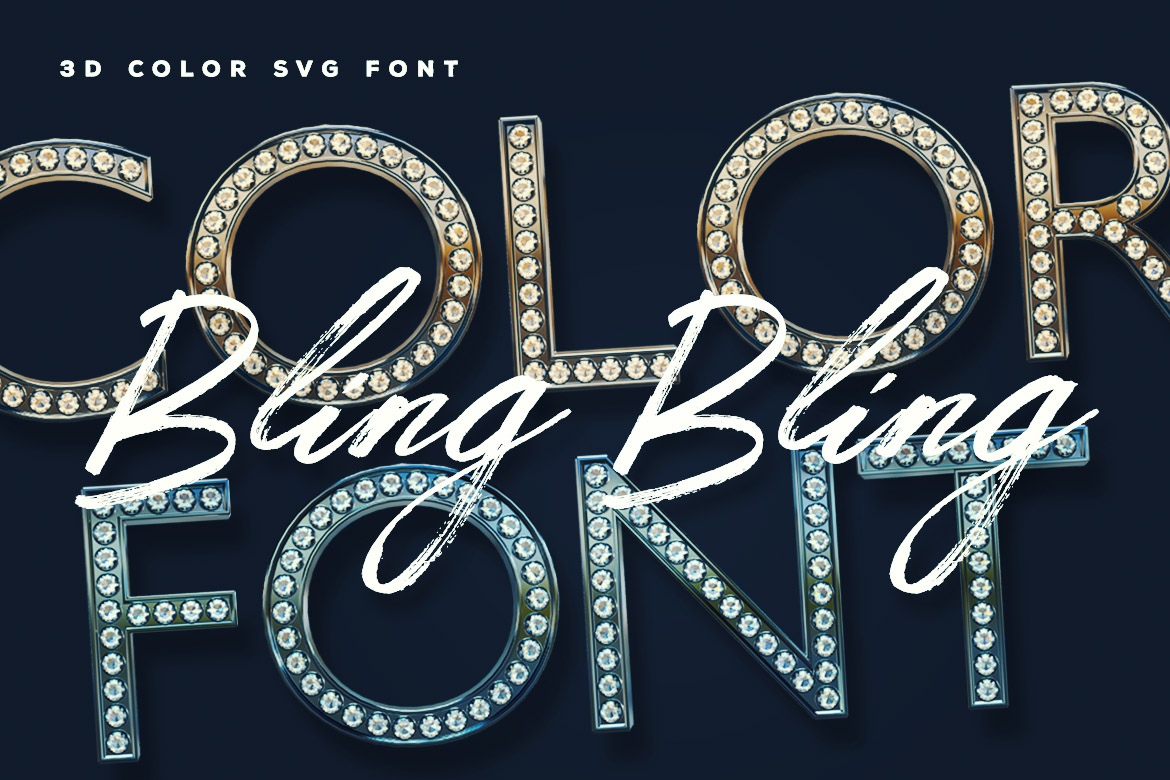
Bling Bling Color Font
Bling Bling Color Font is perfect for luxury jewelry branding, glamorous event marketing, high-end fashion campaigns, celebrity entertainment graphics, VIP club signage, dazzling party invitations, premium nightlife advertising, and sparkling lifestyle communications.
What makes Bling Bling Color Font exciting is its dazzling glamour that embodies the spectacular shine and luxurious sparkle of precious gems and high-end fashion with crystalline brilliance and celebrity appeal. The font features glittering letterforms with diamond-like facets and sparkling character variations that evoke jewelry displays, red carpet events, and the mesmerizing allure of luxury lifestyle and celebrity culture. Its distinctive sparkling styling and glamorous appeal communicate wealth, luxury, and star quality, making every message feel adorned with diamonds and touched by the dazzling brilliance of celebrity glamour and luxury fashion.
The Bling Bling Color Font family includes regular weight with uppercase and lowercase letters, numerals, punctuation marks, and special characters. Premium versions often feature sparkling alternates and crystalline elements that enhance the dazzling, luxury aesthetic perfect for high-end fashion and entertainment applications.
This spectacular glamorous typeface brings instant luxury and celebrity credibility to any high-end project. Bling Bling Color Font Free Download offers exceptional value for luxury brands and entertainment businesses seeking to communicate glamorous excellence, celebrity appeal, and sparkling luxury to affluent audiences and glamour enthusiasts.
The dazzling character of Bling Bling Color Font makes it particularly valuable for luxury jewelry stores, high-end entertainment venues, and celebrity fashion brands. Its excellent visibility ensures luxury messaging and glamorous communications capture attention while maintaining the distinctive sparkling aesthetic that appeals to customers seeking luxurious experiences and celebrity-level glamour.
Luxury entertainment marketers appreciate how Bling Bling Color Font effortlessly conveys glamorous authenticity and celebrity appeal. The font's glittering proportions and sparkling details create dazzling brand materials that establish connections with audiences who value luxury lifestyle, celebrity culture, and the brilliant sparkle of premium jewelry and high-end fashion.
The versatile glamour of this typeface extends to luxury hospitality, premium cosmetics, and VIP services where sparkling authenticity enhances luxury positioning and celebrity appeal. Bling Bling Color Font Free Download provides creative professionals with an essential tool for developing memorable, glamour-driven designs that resonate with audiences who embrace luxury lifestyle, celebrity culture, and the dazzling brilliance of crystalline luxury in their entertainment and fashion experiences.